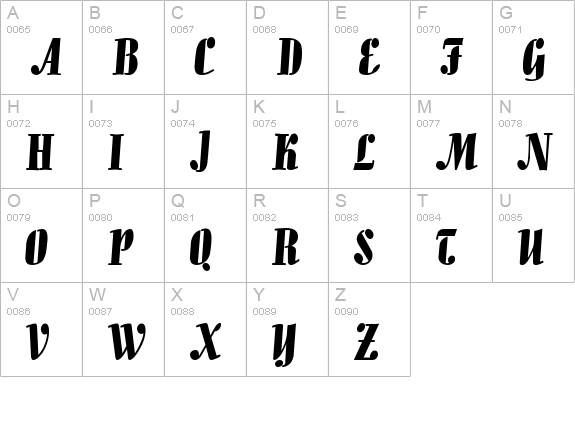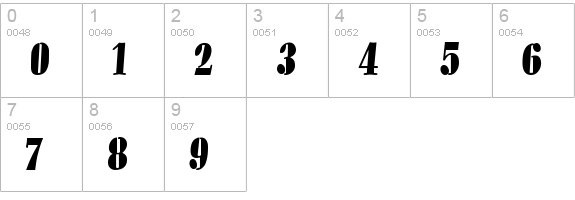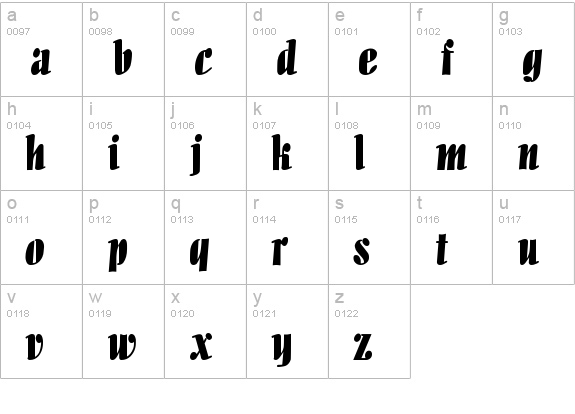
Introducing Iguana font - a sleek and modern typeface that exudes sophistication and versatility. With its clean lines and contemporary aesthetic, Iguana font is the perfect choice for a wide range of design projects, from branding to editorial design. Its unique characteristics make it stand out from the crowd, ensuring that your text will make a lasting impression. What sets Iguana font apart is not just its stunning design, but also the fact that it is completely free to download. That's right - you can access this premium font at no cost at FontsMarket.com. Whether you're a professional designer looking to enhance your work or a hobbyist seeking to add a touch of elegance to your projects, Iguana font is the ideal choice for all your typography needs. Download it today and elevate your designs with this exquisite typeface.